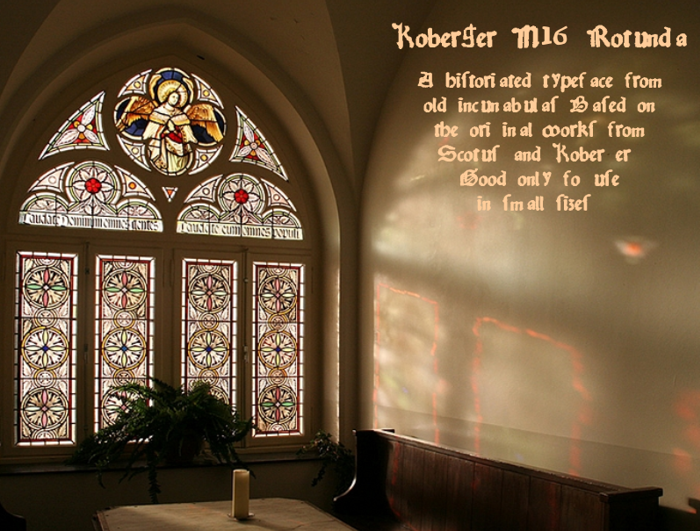
KobergerN16Rotunda Font
A historiated typeface from old incunabulas. Based on the original works from Scotus and Koberger. Good only fo use in small sizes.